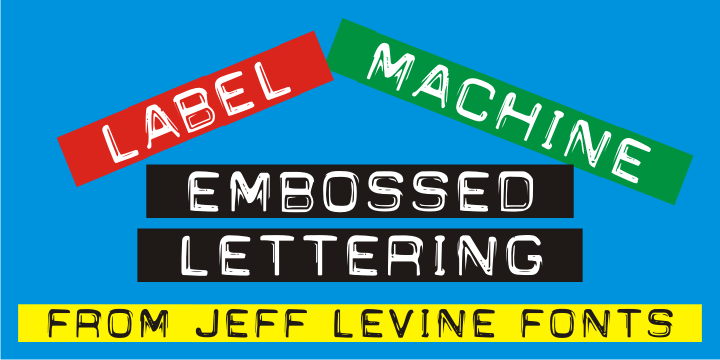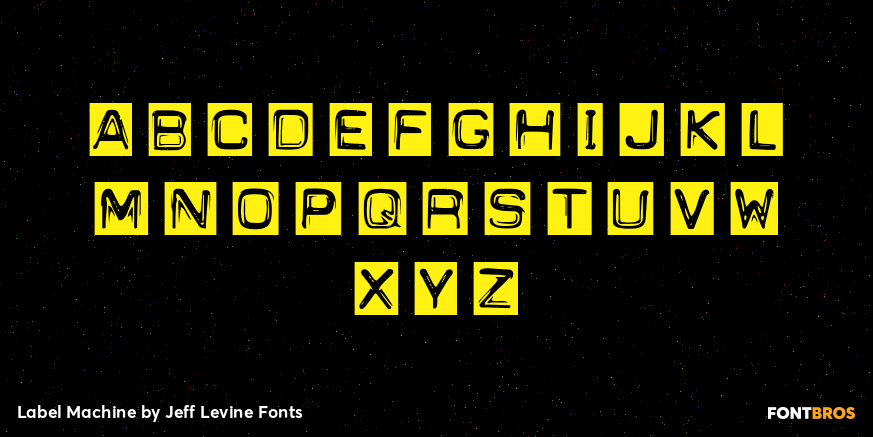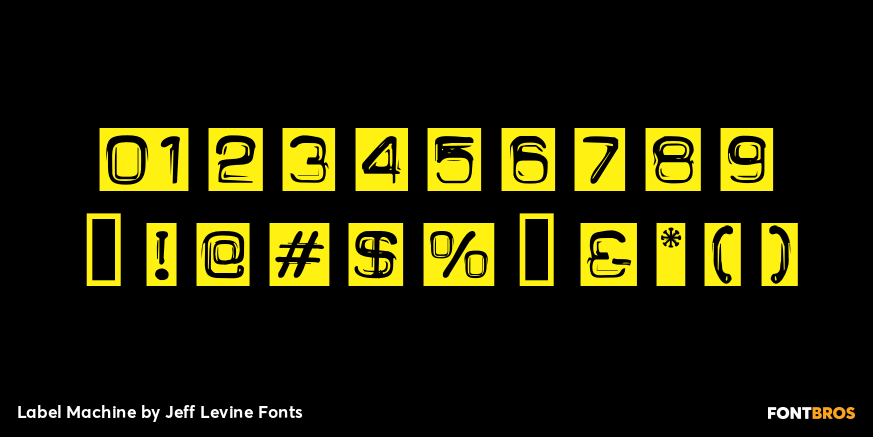
Label Machine
Label Machine JNL is Jeff Levine's take on the embossed labels popularly used for years as a marking and identifying method. This font has a limited character set. On the left bracket is a wide blank for label ends, and the right bracket has a narrower space for use between words.